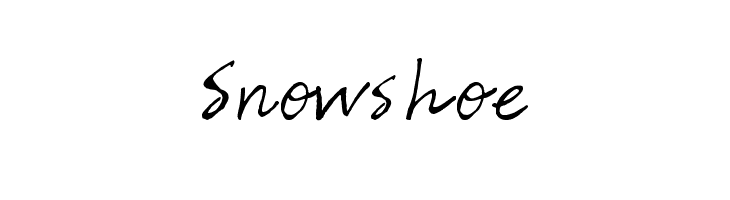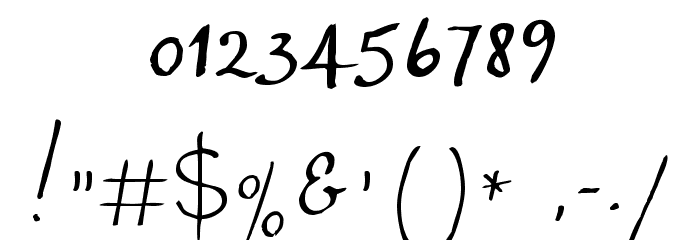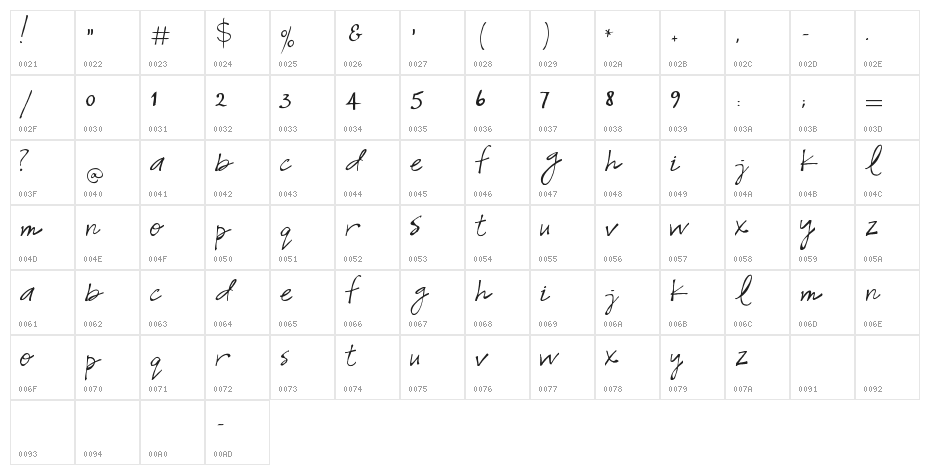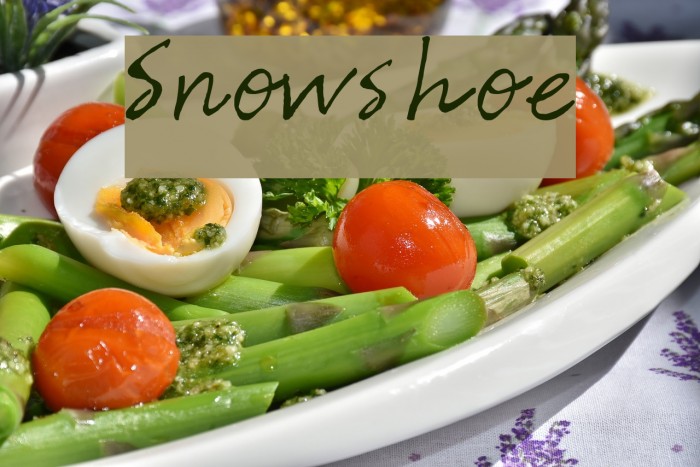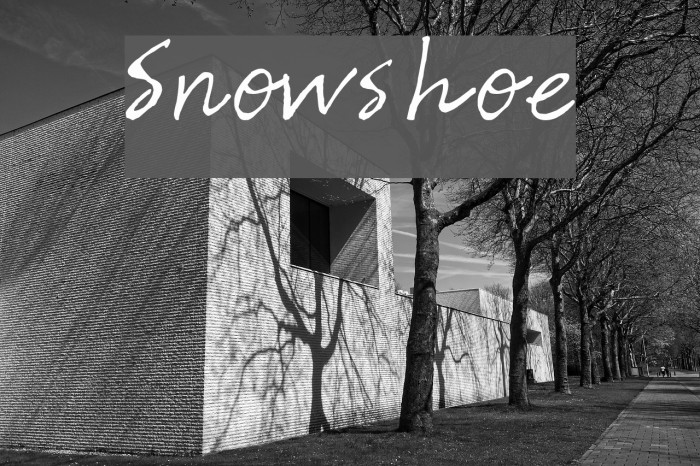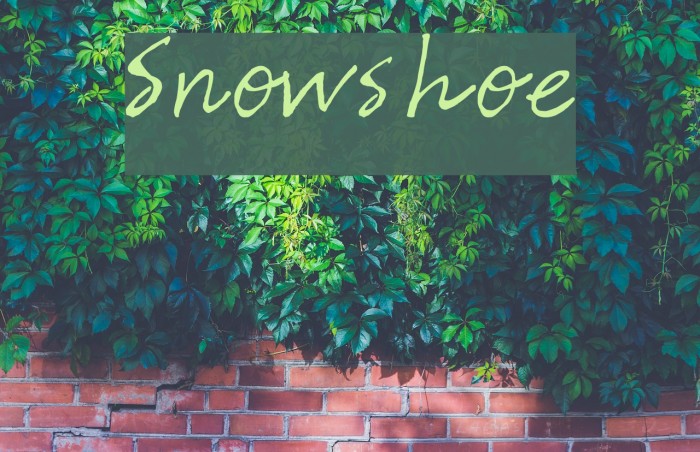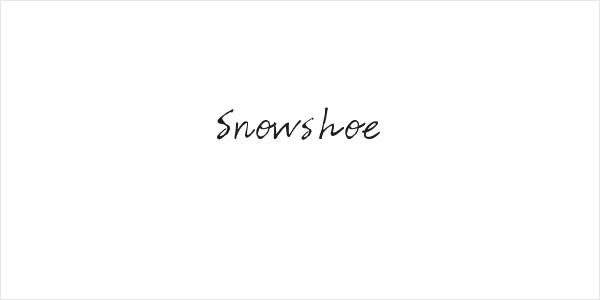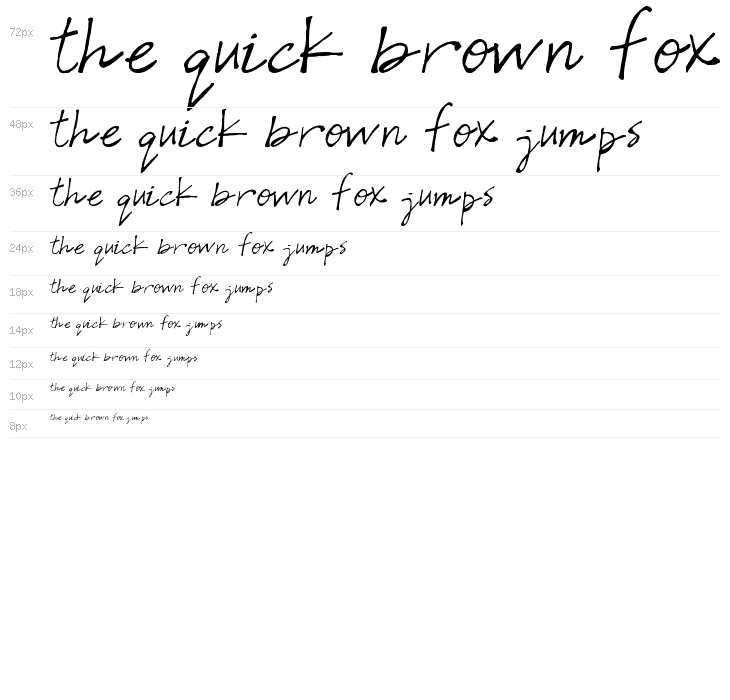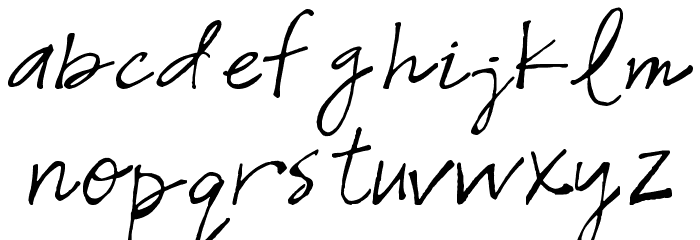
Snowshoe Font
Snowshoe Description
This font features a dynamic and expressive handwritten style, characterized by its fluid and natural strokes. The letters are slightly slanted, giving it a casual yet elegant appearance. The uppercase and lowercase letters maintain a consistent flow, with varying stroke thickness that adds a lively rhythm to the text. The numerals are clear and legible, complementing the overall style. Special characters are well-integrated, maintaining the font's cohesive look. This font's organic and personal touch makes it suitable for projects that require a humanistic and approachable feel.
| Overall Style | Casual, Elegant |
| Use Case | Logos, Invitations, Greeting cards |
| Proposed Projects | Ideal for personal branding, invitations, greeting cards, and creative projects that require a personal touch. |